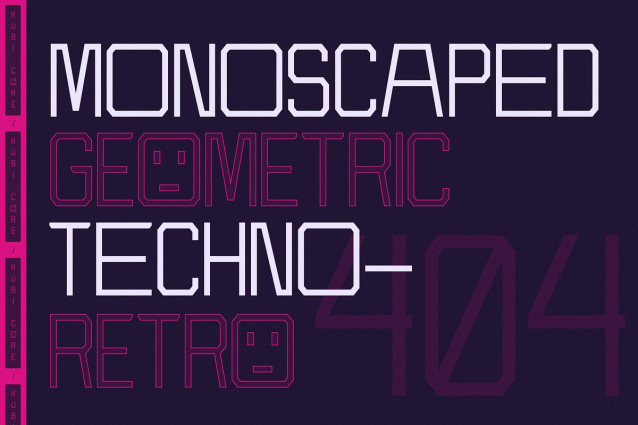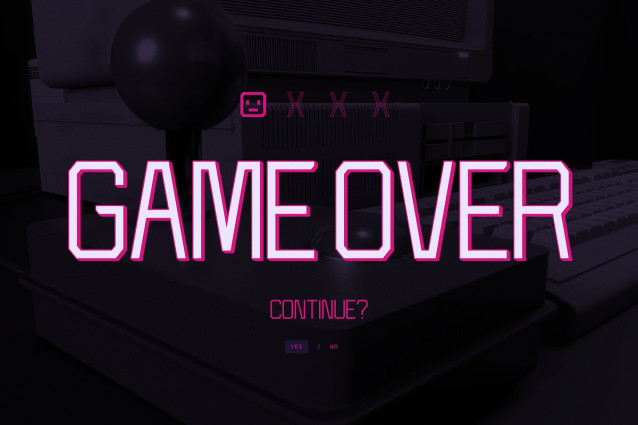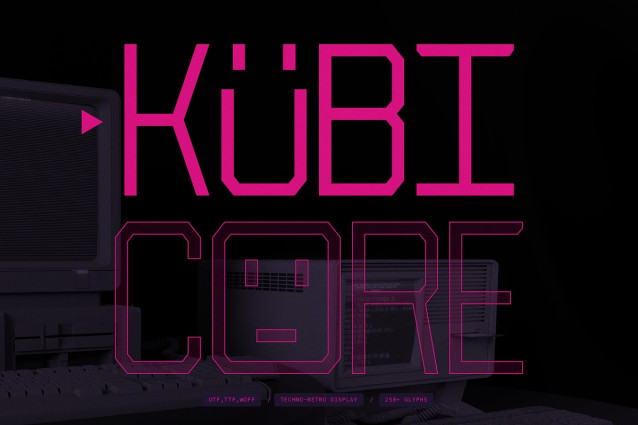
Kubicore Techno Font
Kubicore Techno Font – Techno Retro Display, from Gracetypestudio, suitable for any projects such as: logos, branding projects, homeware designs, product packaging, mugs, quotes, posters, shopping bags, t-shirts, book covers, name card, invitation cards, greeting cards, label, photography, watermark, special events, and all your other lovely projects that need a Techno Retro Display taste.